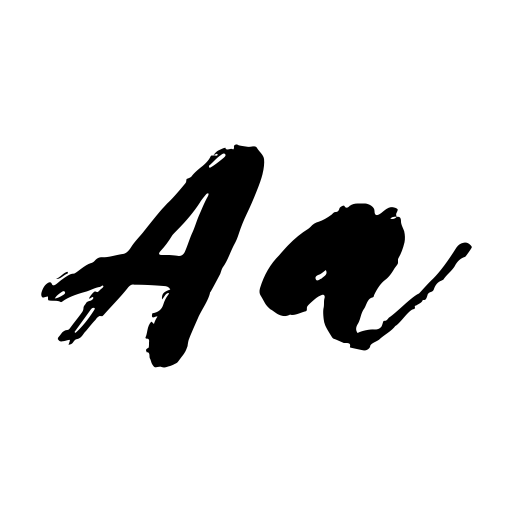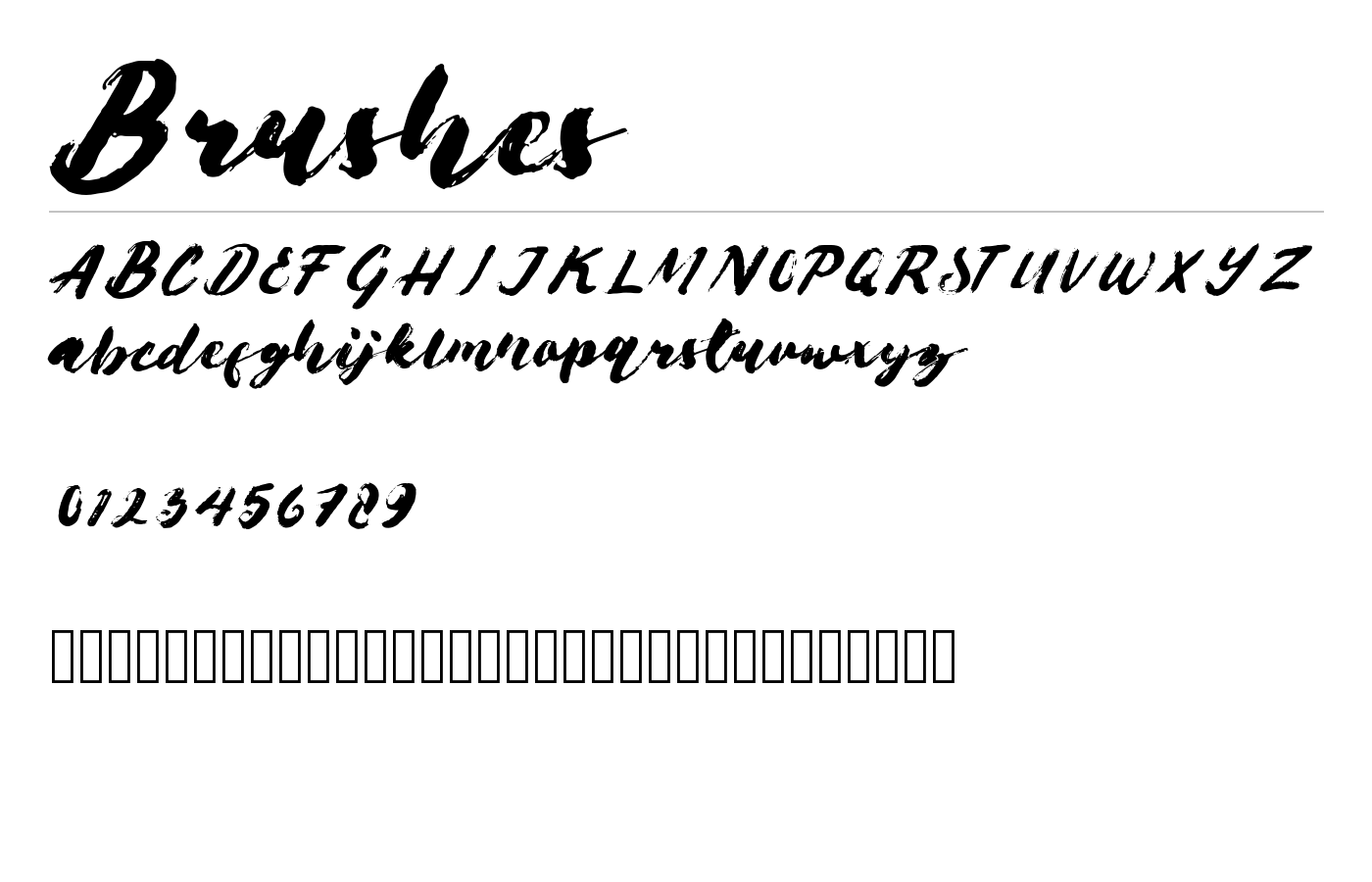
Brushes Font is a lively, brush-script typeface that captures the organic texture and flow of hand-painted lettering. With its bold, irregular strokes and natural variations, this font conveys a creative, artistic vibe perfect for expressive logos, packaging, and headlines where a casual yet dynamic look is desired. Its energetic style suits designs aiming to communicate personality and freshness, especially in lifestyle, fashion, and creative branding contexts.
Brushes Font
About Brushes Font